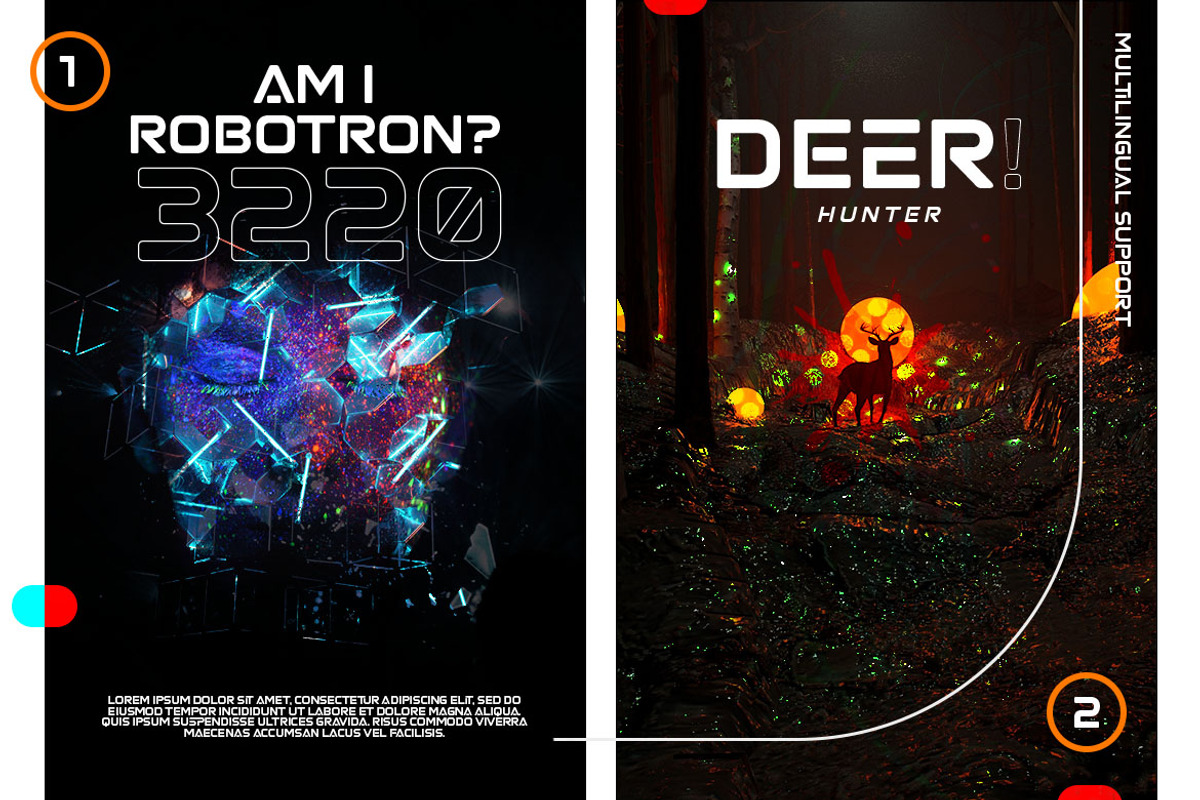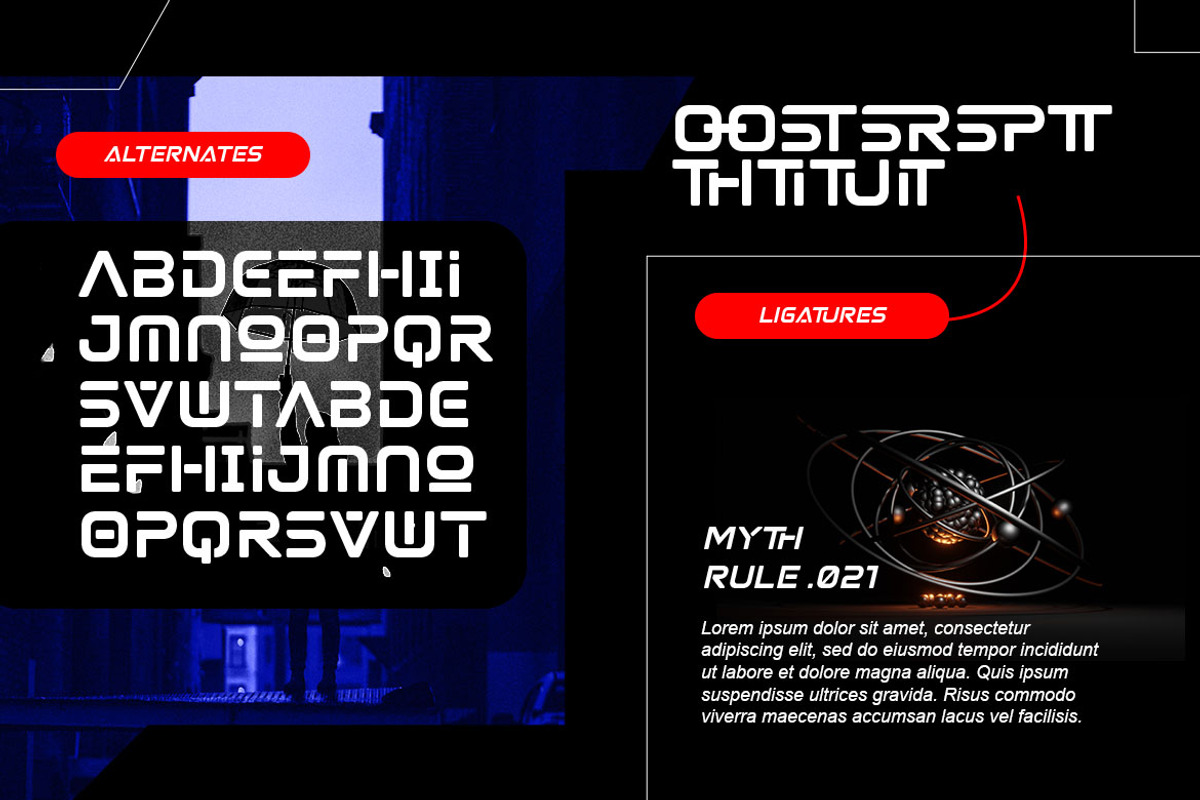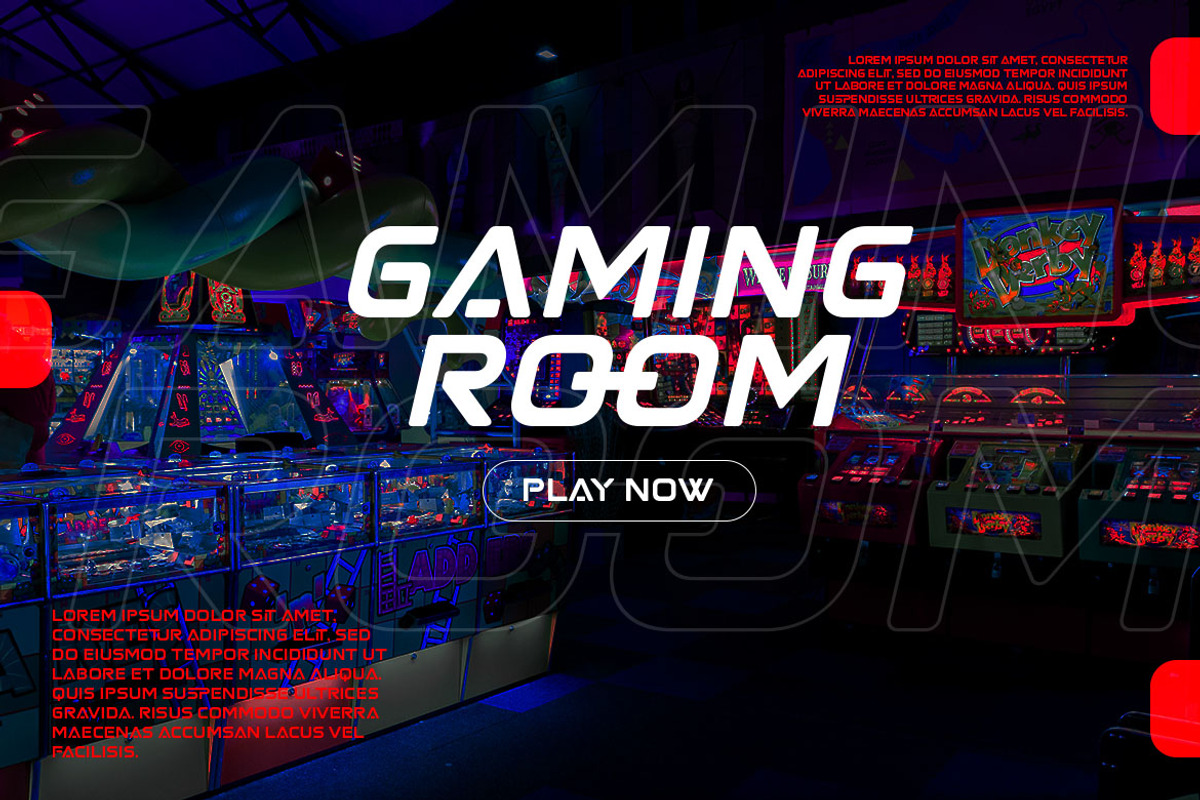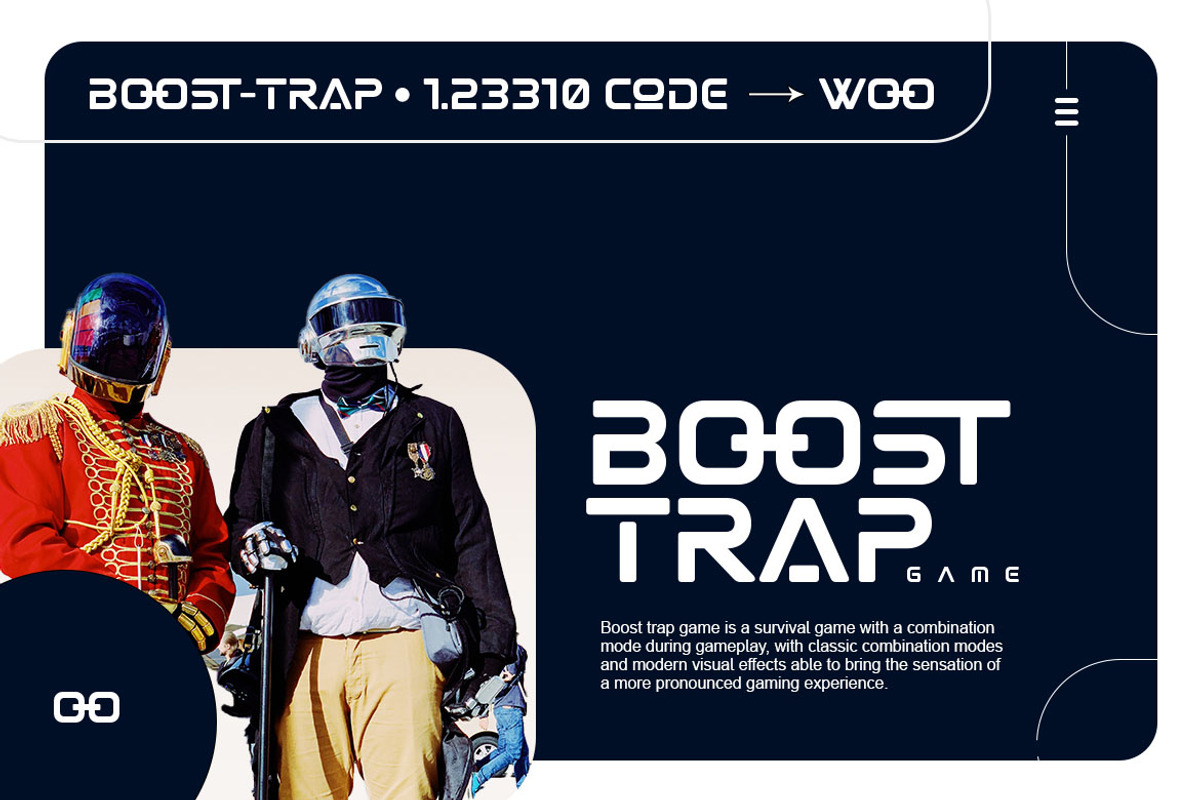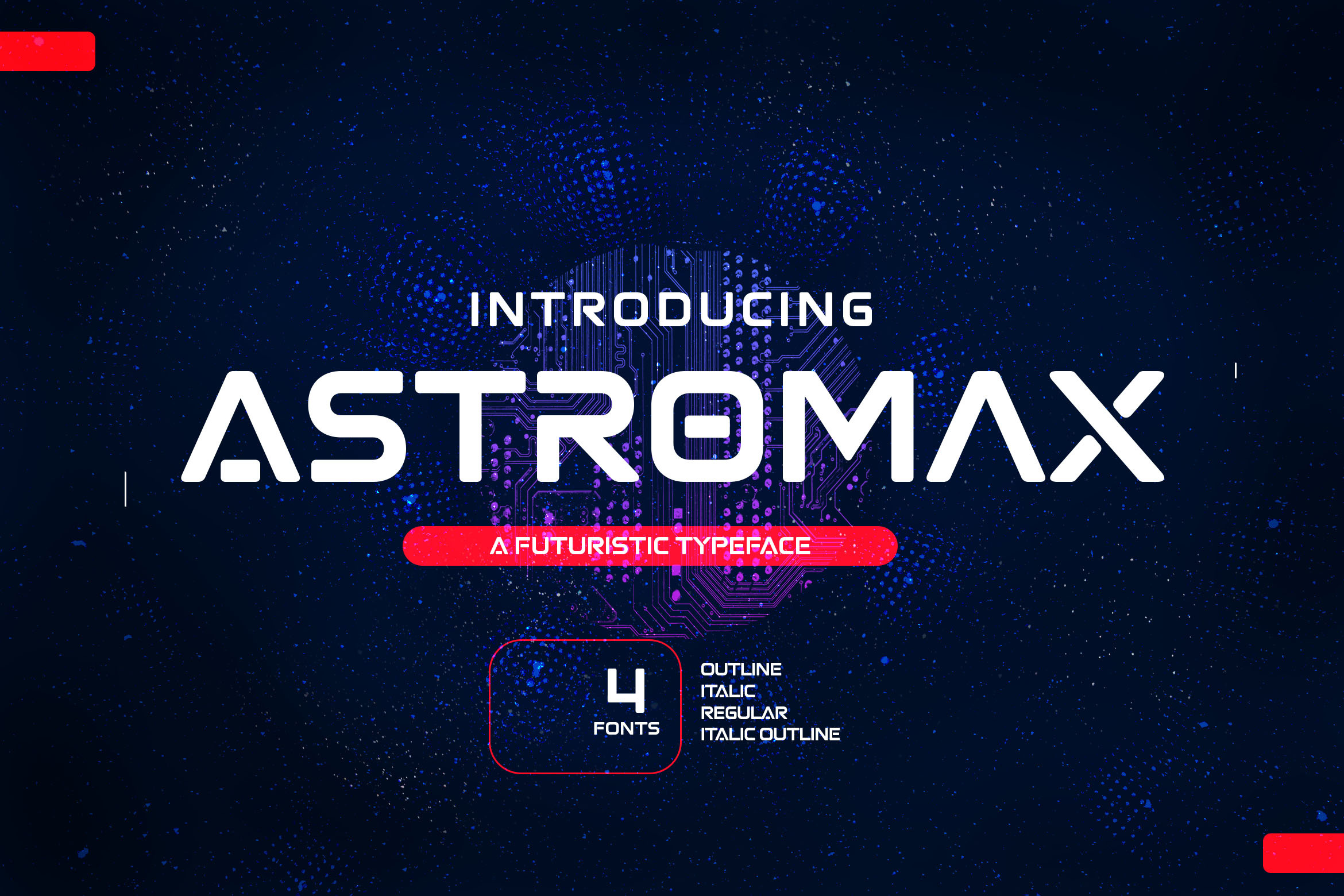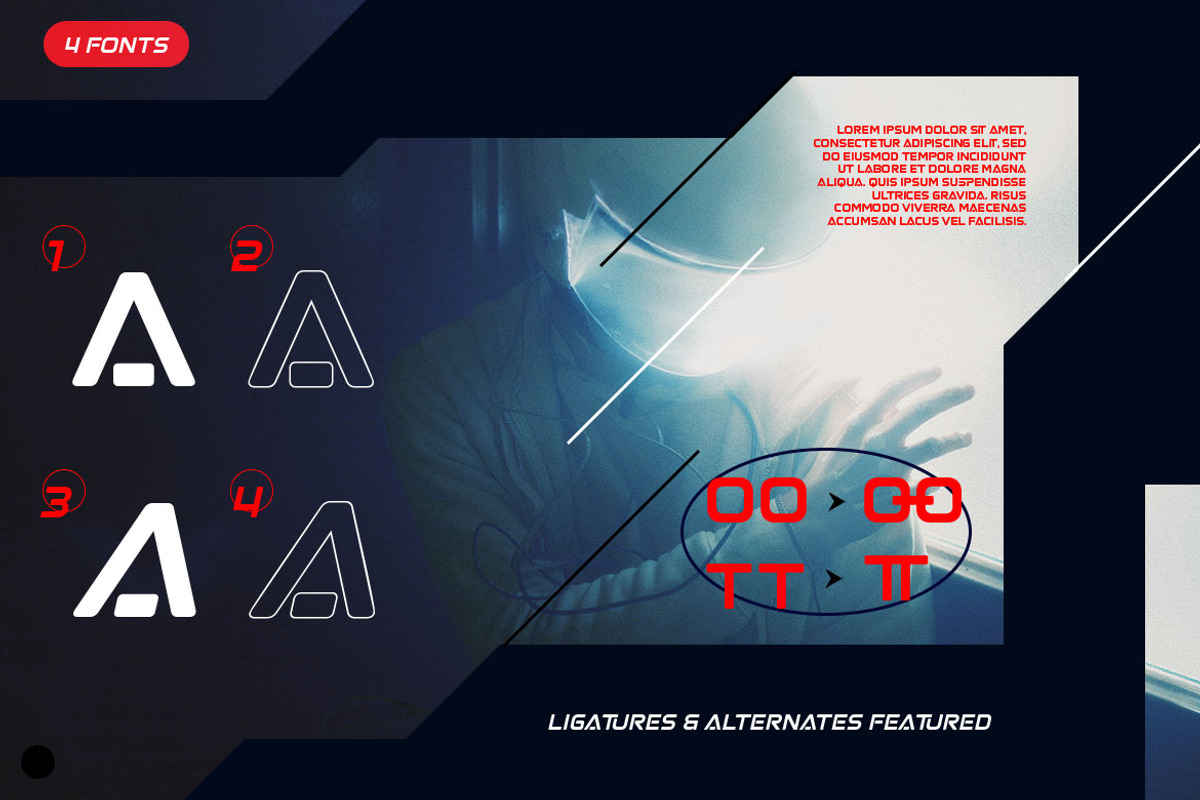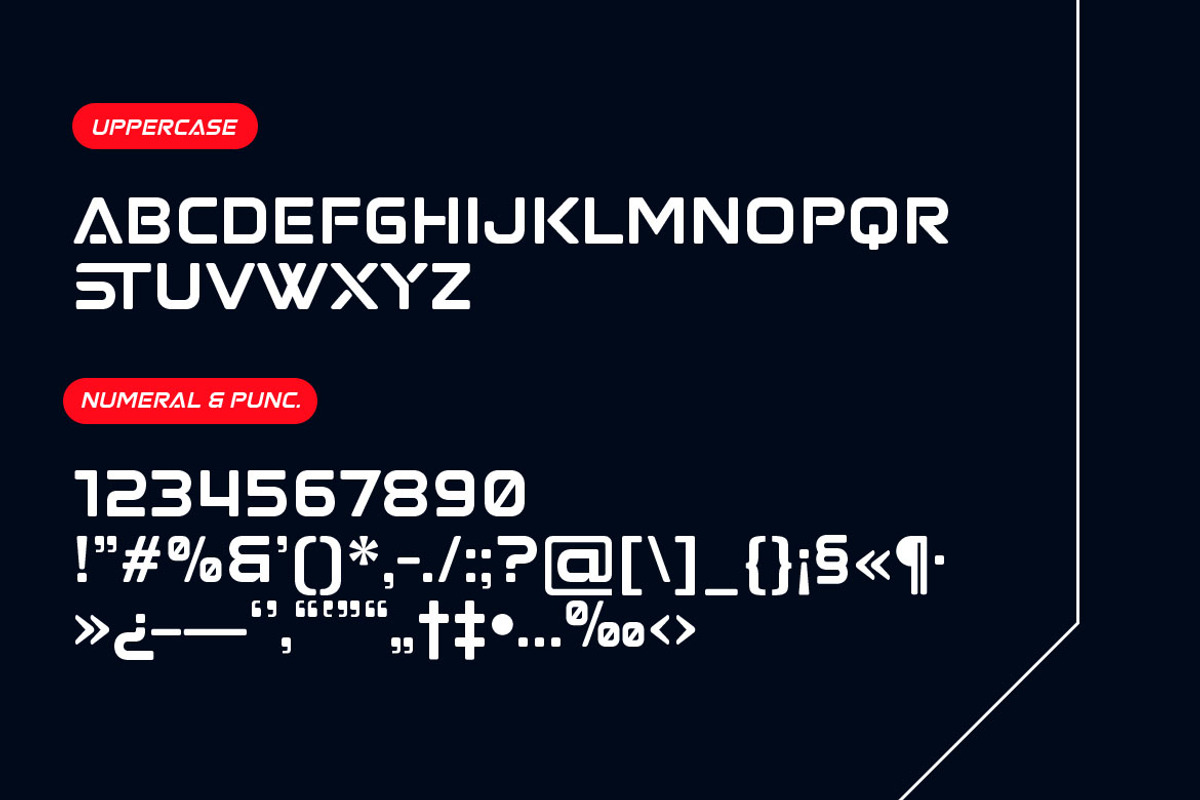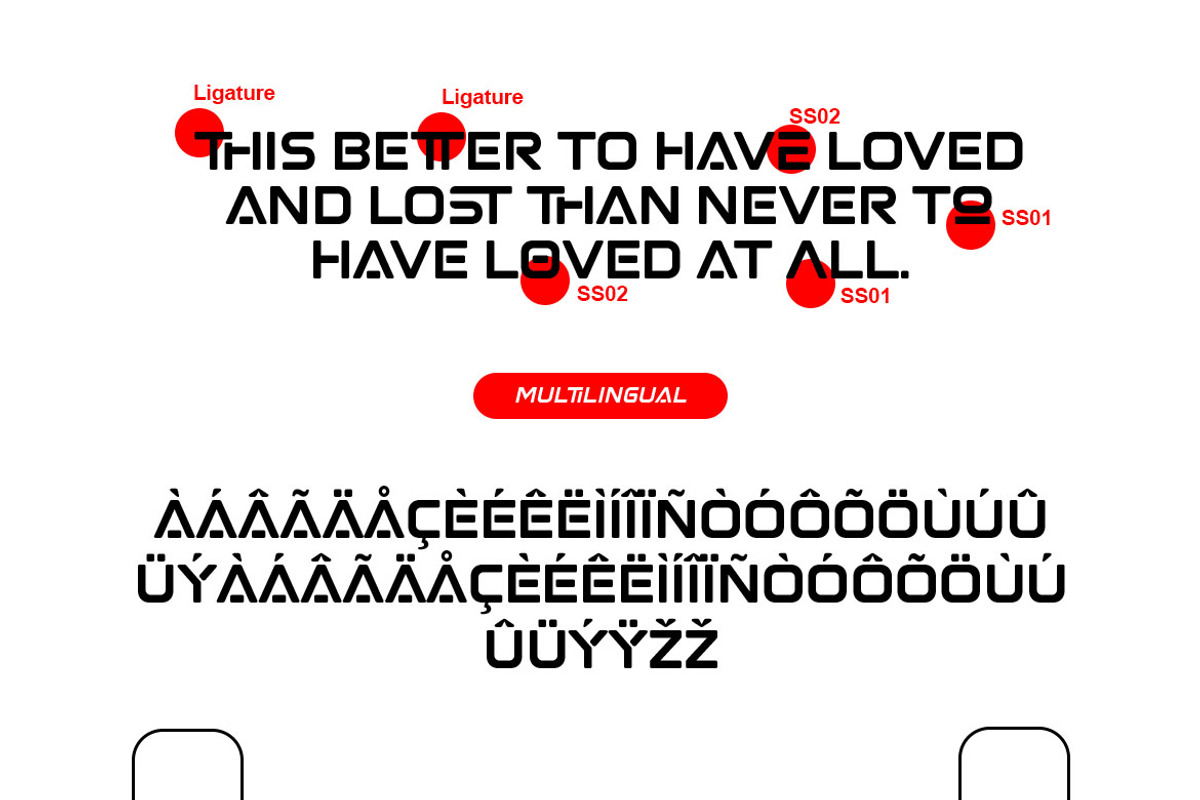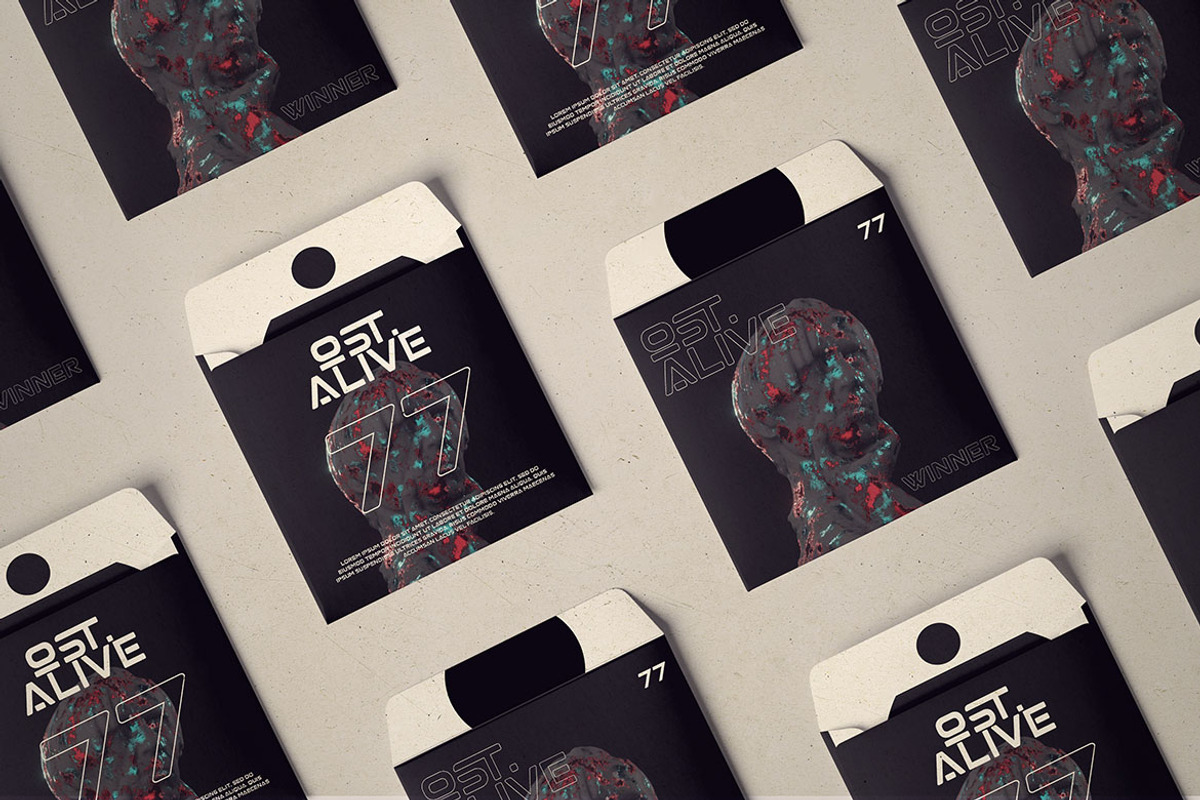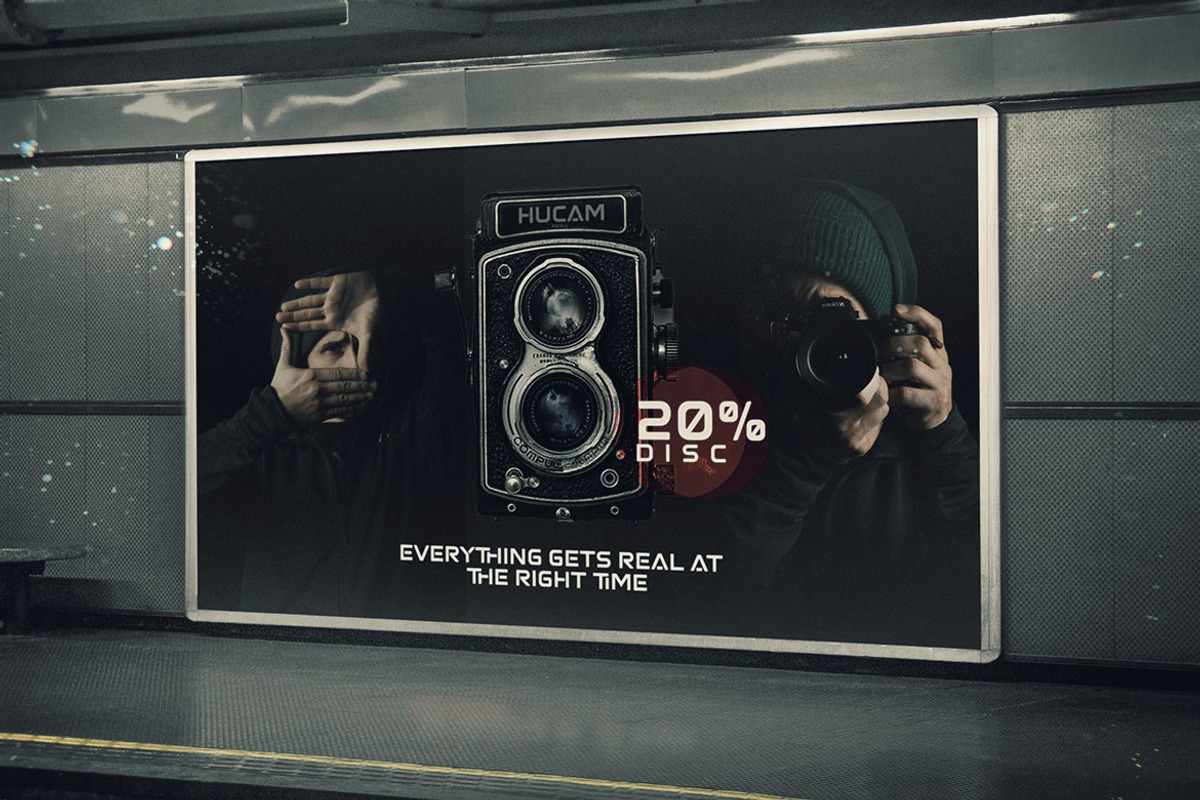
Astromax - A Futuristic Typeface
Astromax - A Futuristic Typeface is a set of upper & lowercase serif characters which includes a large range of punctuation glyphs, numerals, and multilingual support. A full set of stylistic alternates for lowercase characters are also available.
Available :
- Italic
- Italic outline
- Outline